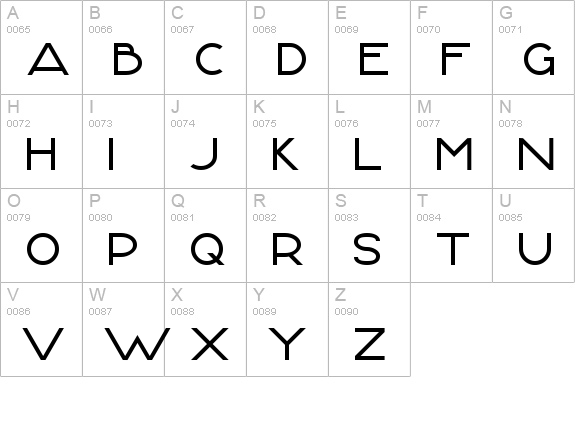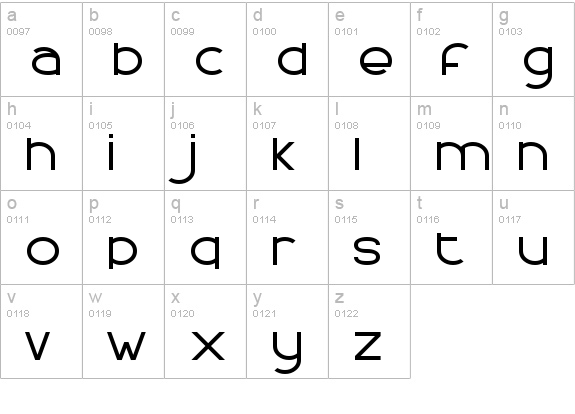
FontLogic Normal Font Details
FontLogic Normal is the standard, neutral variant in the FontLogic typeface family \xE2\x80\x94 well suited to general body text, paragraphs, and standard typographic work.
Introducing FontLogic Normal, a versatile and modern font that strikes the perfect balance between professionalism and creativity. With its clean lines and sleek design, FontLogic Normal is ideal for a wide range of design projects, from branding to editorial layouts. This font exudes a sense of sophistication and elegance, making it the perfect choice for those looking to make a bold statement with their typography. Whether you're designing a sleek logo for a corporate client or creating eye-catching social media graphics, FontLogic Normal is sure to elevate your designs to the next level. And the best part? FontLogic Normal is completely free to download at FontsMarket.com. This means you can access this high-quality font without breaking the bank, making it an excellent choice for designers on a budget. Don't miss out on the opportunity to add FontLogic Normal to your font library and take your designs to new heights. Download it today and see the difference it can make in your projects!